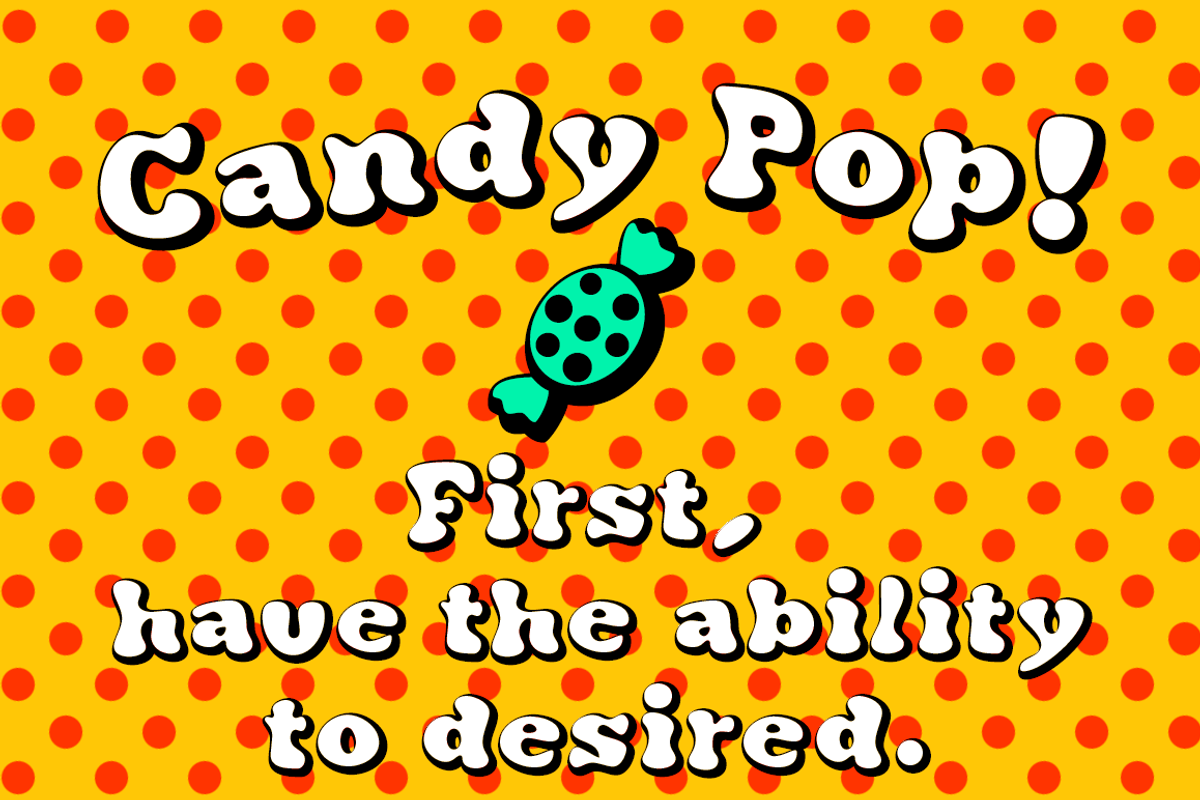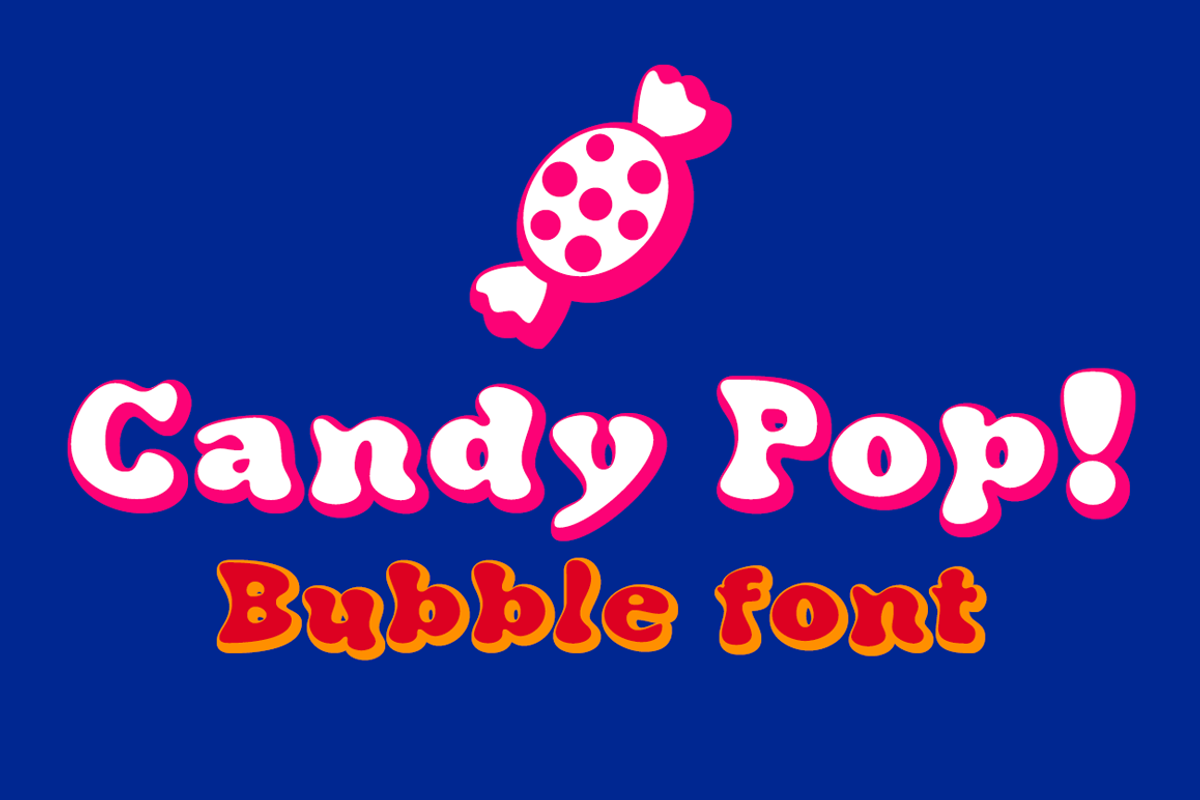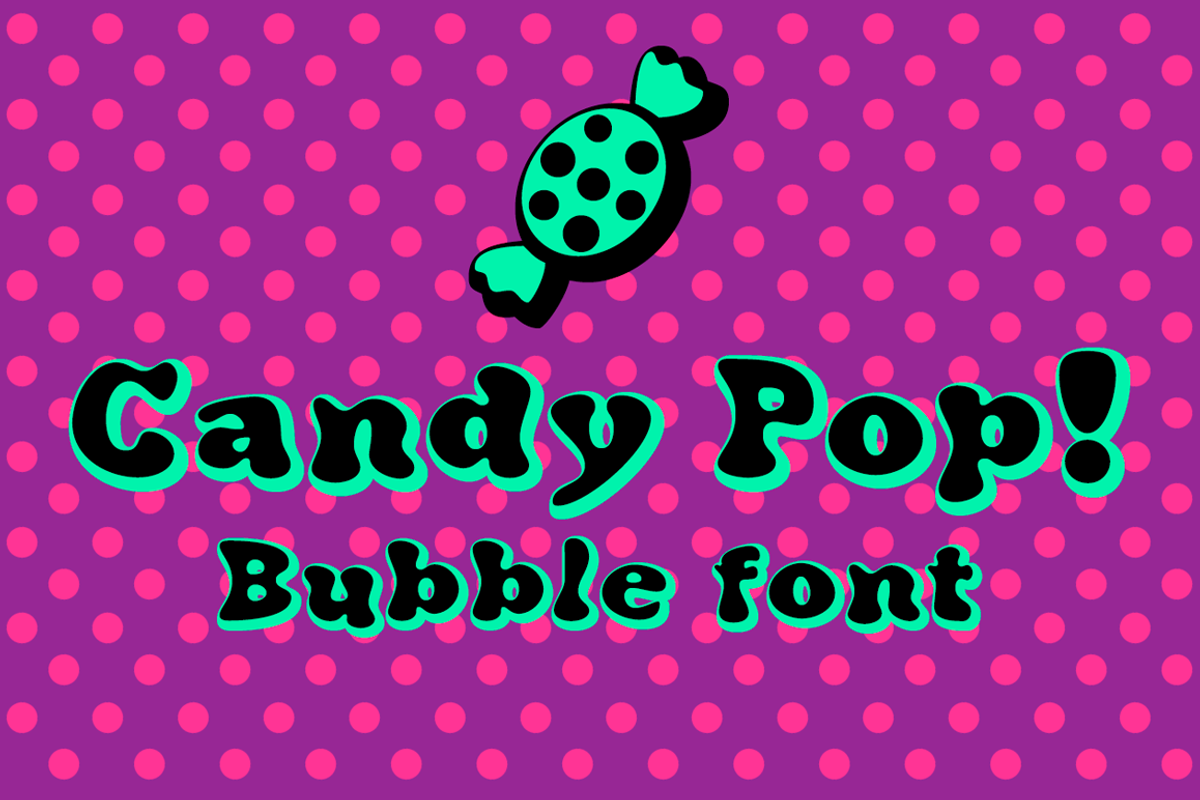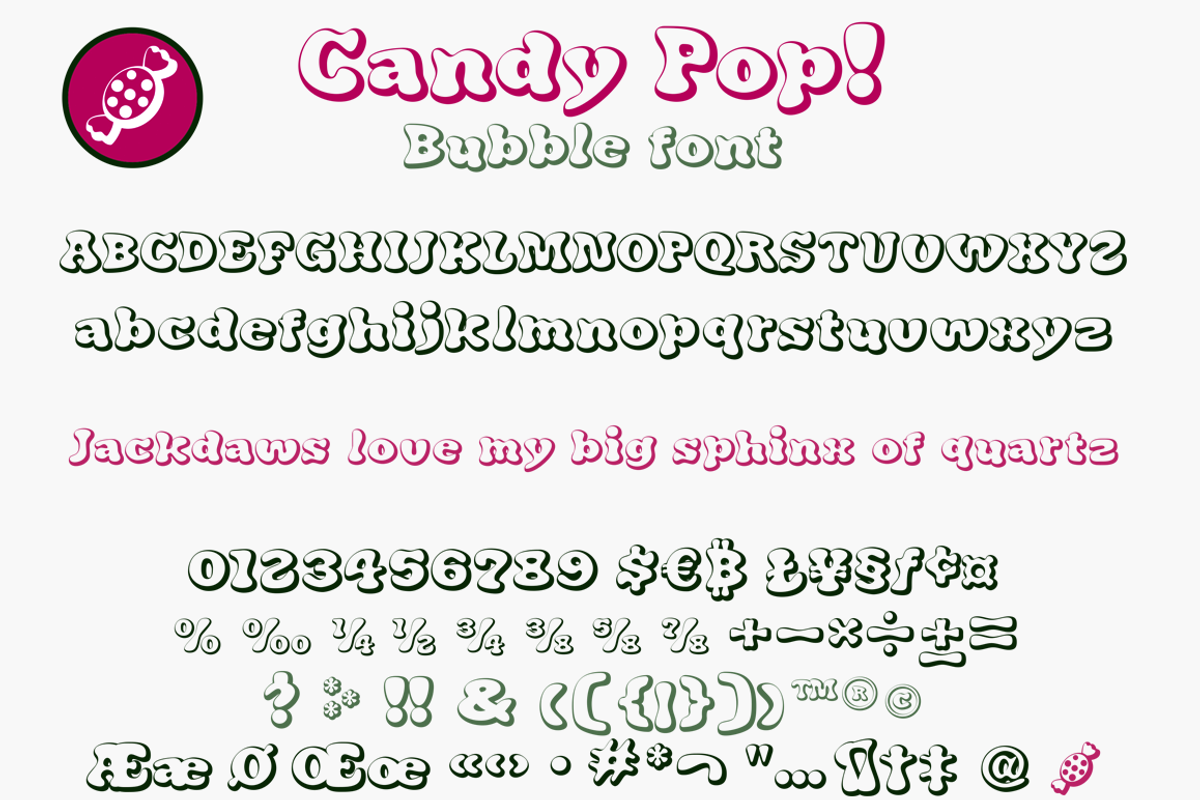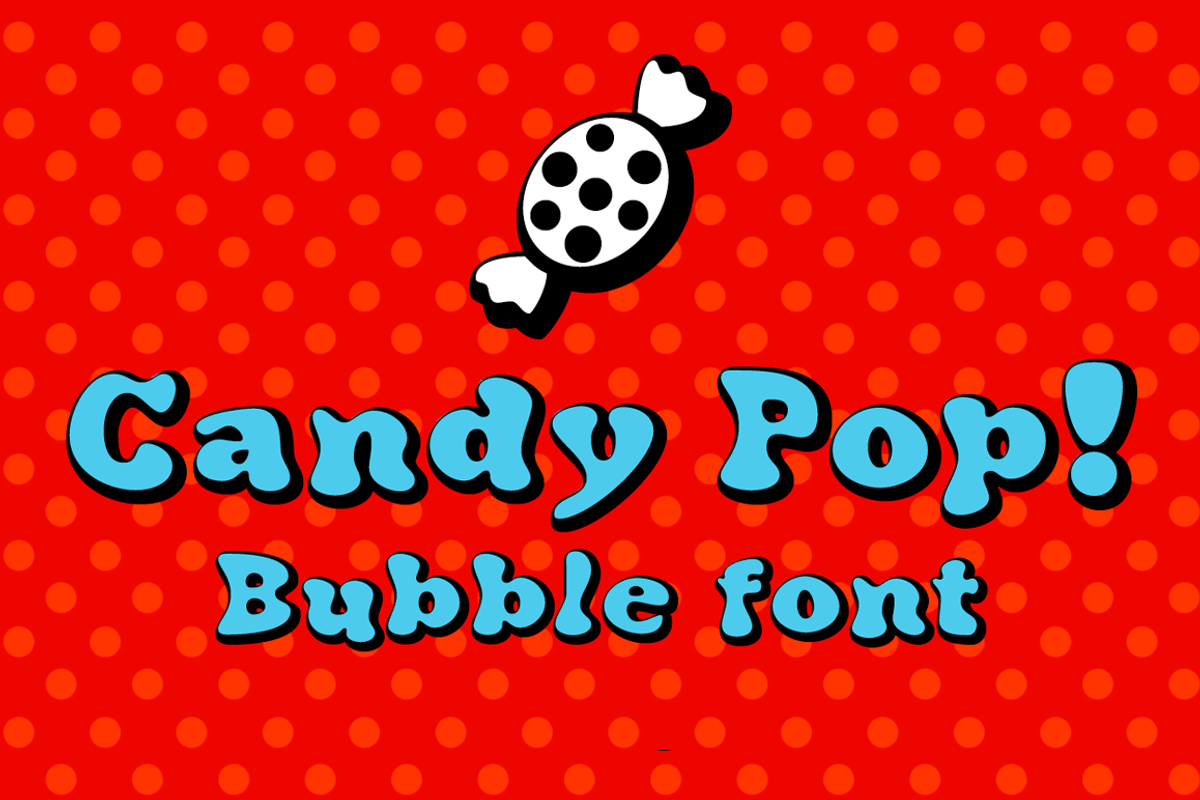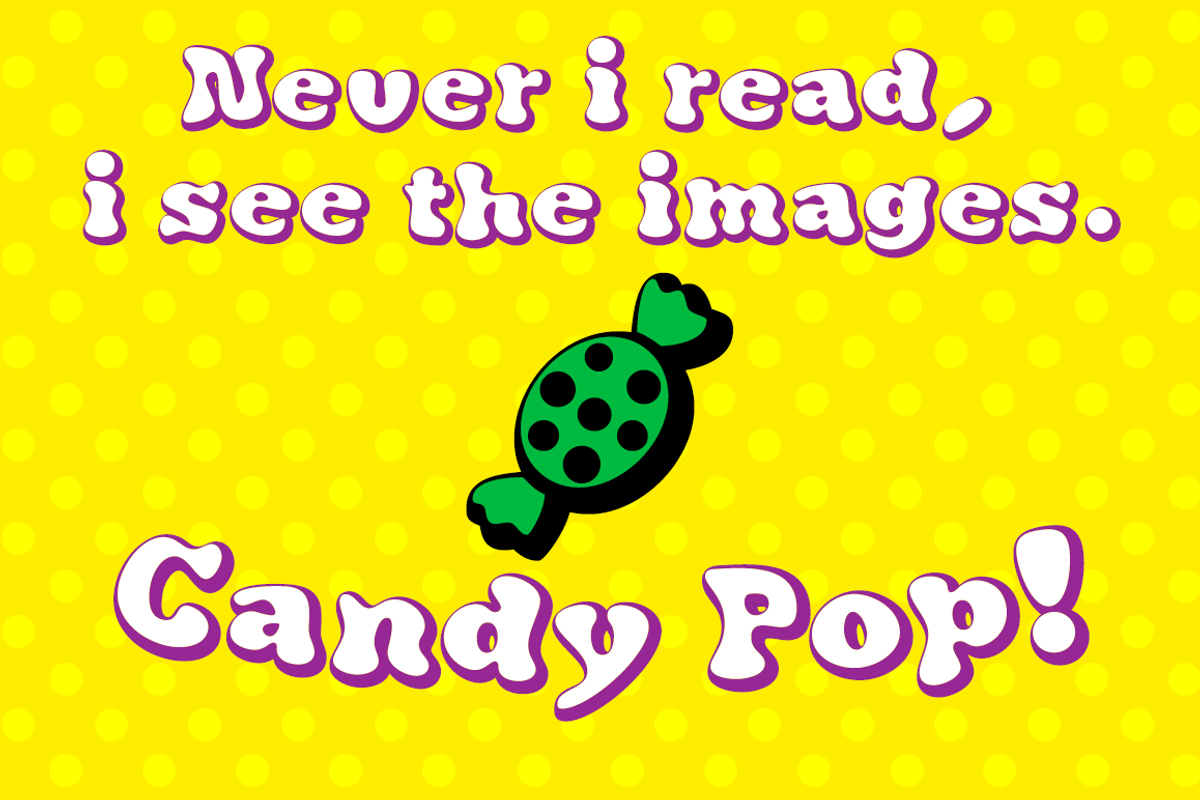
Candy Pop! bubble font
Candy Pop! bubble font by deFharo is a font selected for branding, posters, packaging, typography.
- The Commercial version includes: 377 glyphs.
- OpenType Functions: Capital Spacing, Standard Ligatures, Ordinals, Kerning, Fractions.
- Use ligatures: Bitcoin symbol: (b#), Candy Symbol: a# Show More
Candy Pop! bubble font by deFharo fits naturally into Branding, posters, packaging, typography.